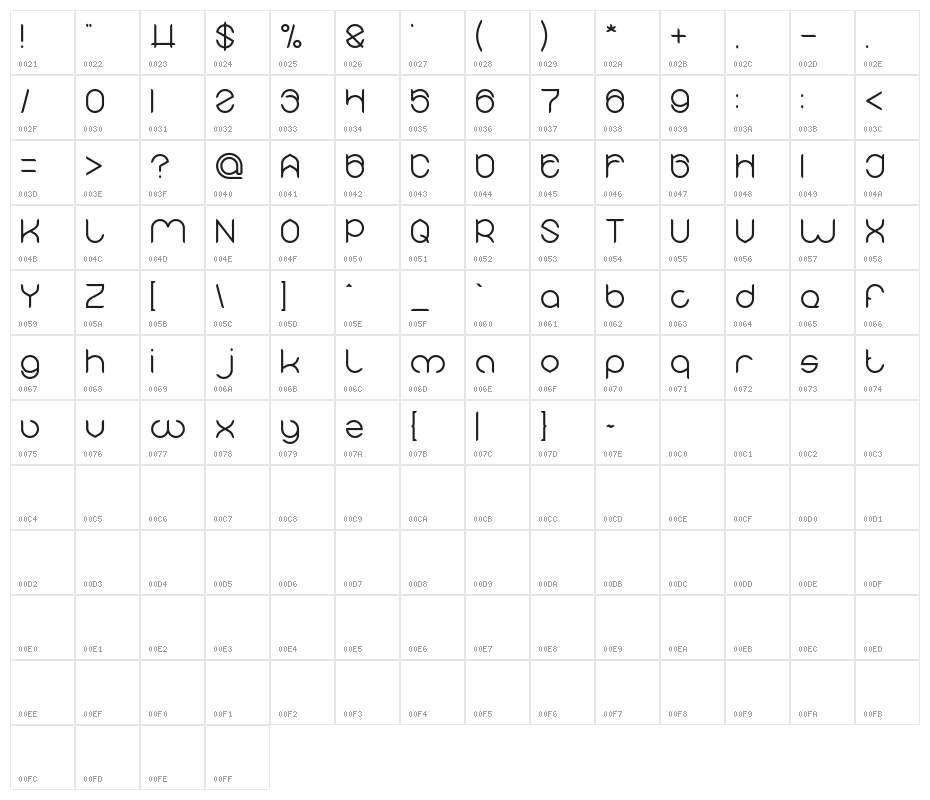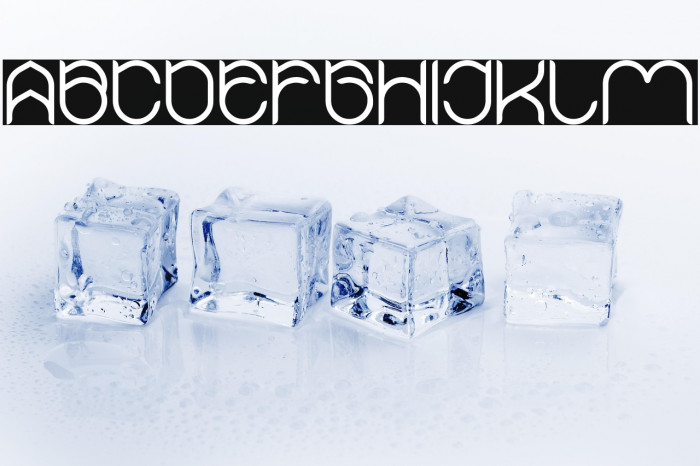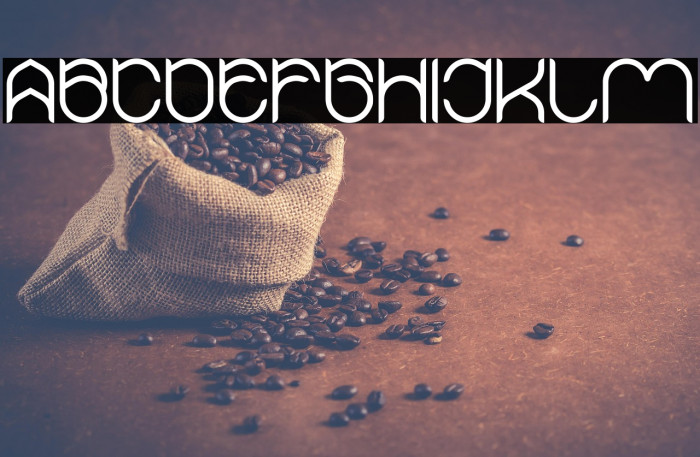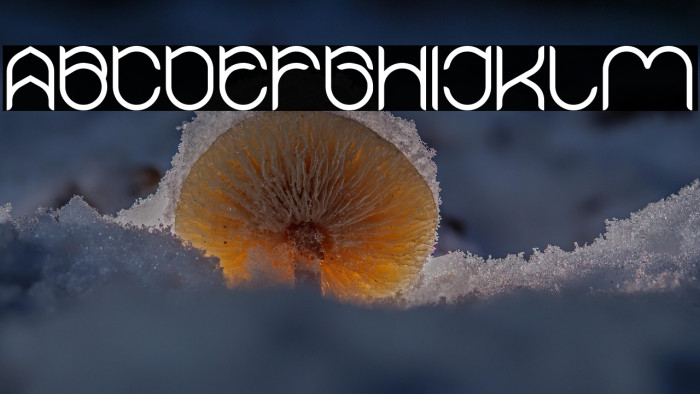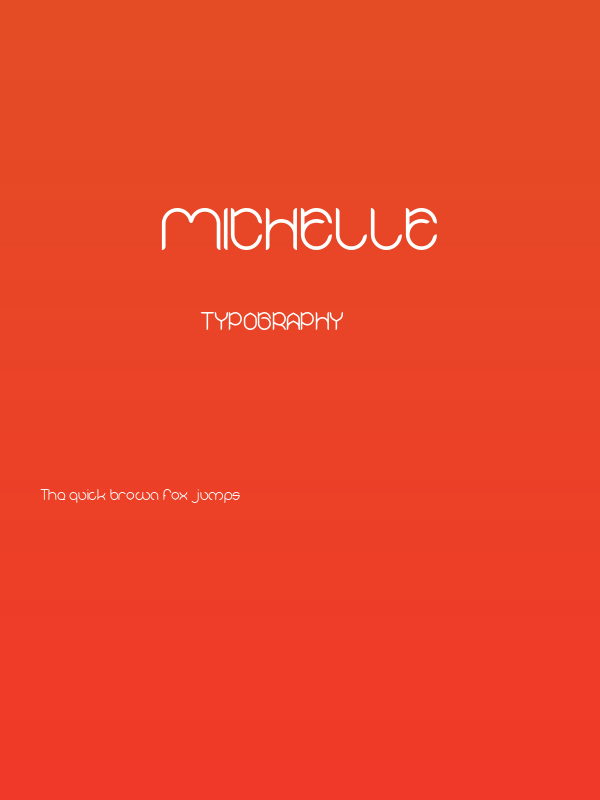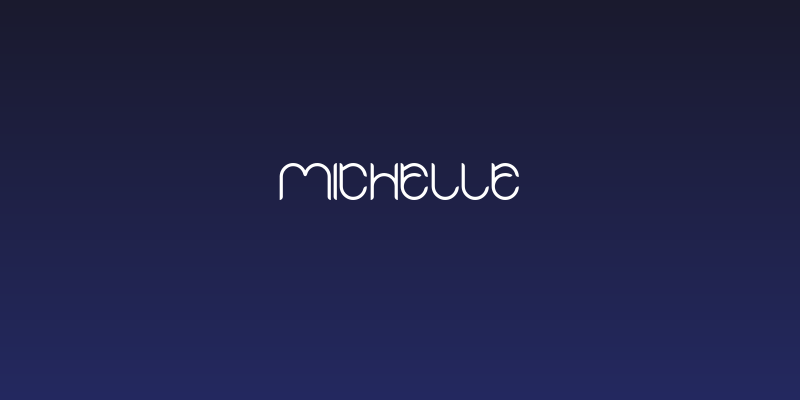
MICHELLE Font
MICHELLE Description
This font features a unique and modern design with rounded edges and a geometric structure. The characters are crafted with a consistent stroke width, giving it a clean and cohesive appearance. The uppercase and lowercase letters maintain a similar style, with slight variations to distinguish them. Numbers and special characters are designed to match the overall aesthetic, ensuring uniformity across all glyphs. The font's playful yet structured look makes it versatile for various design applications.
| Proposed Projects | Ideal for branding, packaging, posters, and digital media where a contemporary and playful style is desired. |